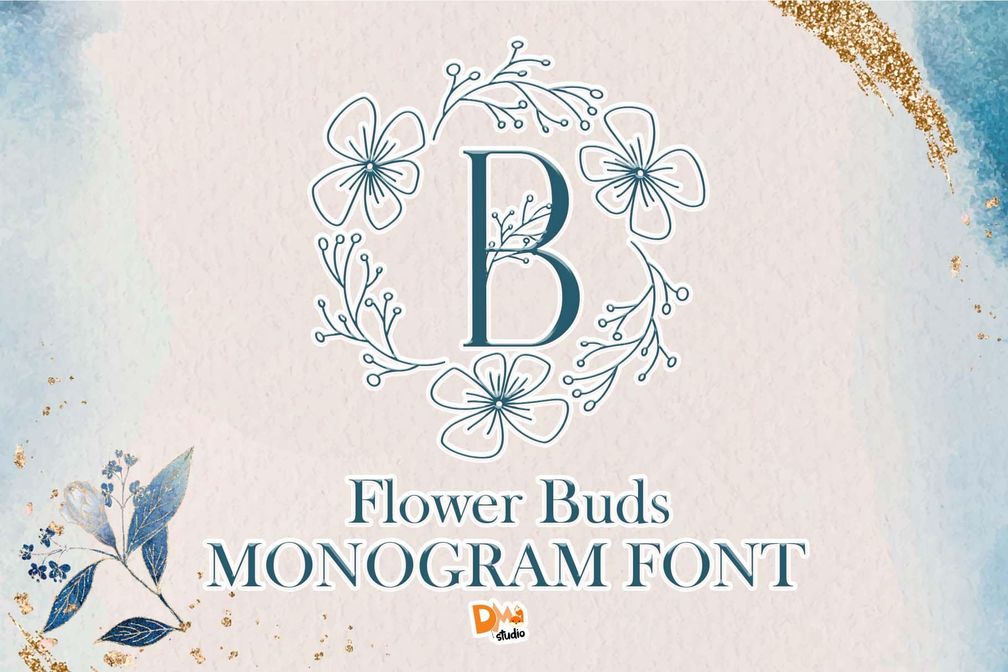
Flower Buds Monogram
Flower Buds Monogram – Elegant & Floral Monogram Font
Flower Buds Monogram is a beautifully handcrafted typeface featuring intricate floral bud-inspired monogram designs. This delicate yet sophisticated font is perfect for wedding invitations, luxury branding, personalized gifts, boutique packaging, and artistic stationery. Its ornamental aesthetic brings a touch of nature and elegance to any design project.
✔ Intricate Floral Buds Design – Each letter is adorned with delicate hand-drawn floral buds.
✔ Perfect for Elegant & Luxury Projects – Ideal for wedding monograms, boutique branding, and personalized stationery.
✔ Refined & Timeless Aesthetic – Combines nature-inspired elegance with ornamental beauty.